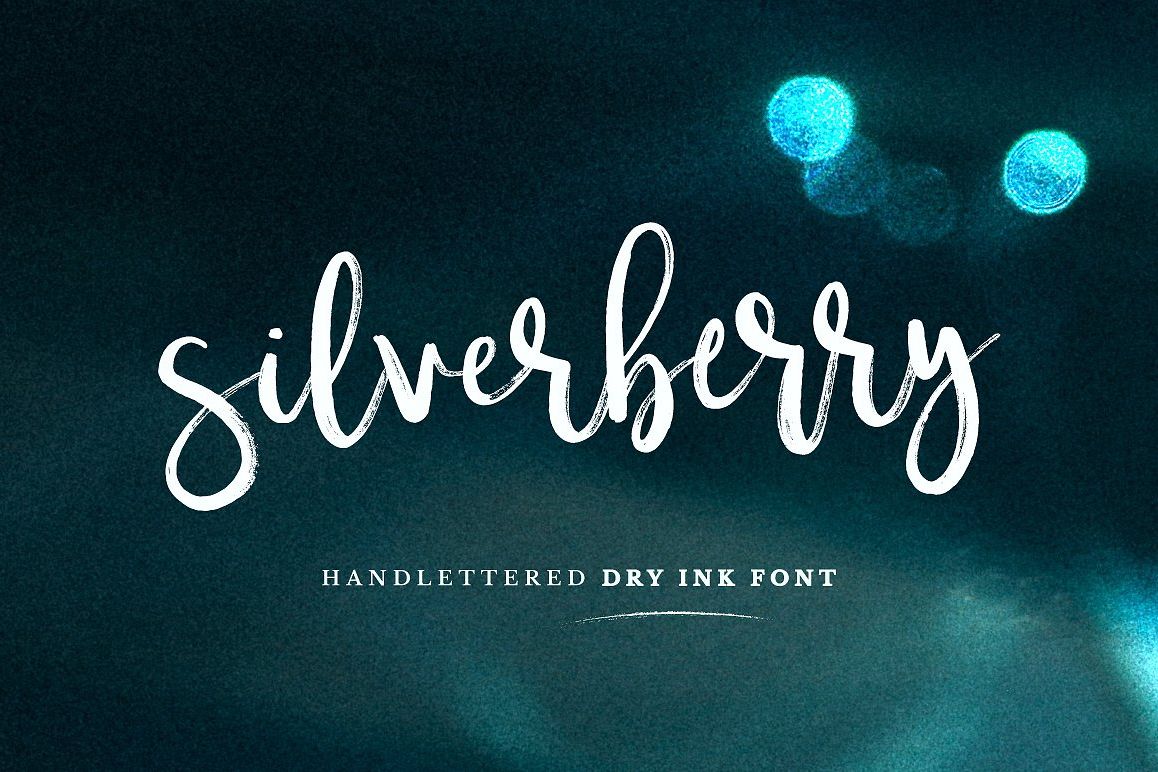
Silverberry - Dry Ink Font
A new hand lettered dry ink font, Silverberry, is out now!
Silverberry includes modern cute & bouncy characters with upper and lowercase alternates that plays perfectly together all day long! It has an incredibly high quality look even when zoomed 100%. Create professional designs in a minute and start creating modern designs like ads, sales, logos, branding, posters, social media text overlays today!
Silverberry includes:
1. Silverberry
2. Silverberr Alternates
- Full alternates for upper and lowercase characters to make your design look more awesome!! Access alternates either via Glyphs Panel (OTF) or individual alt font (OTF, TTF).